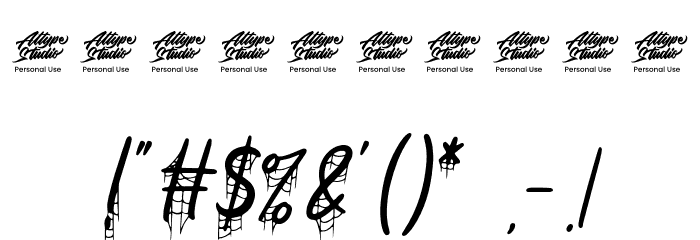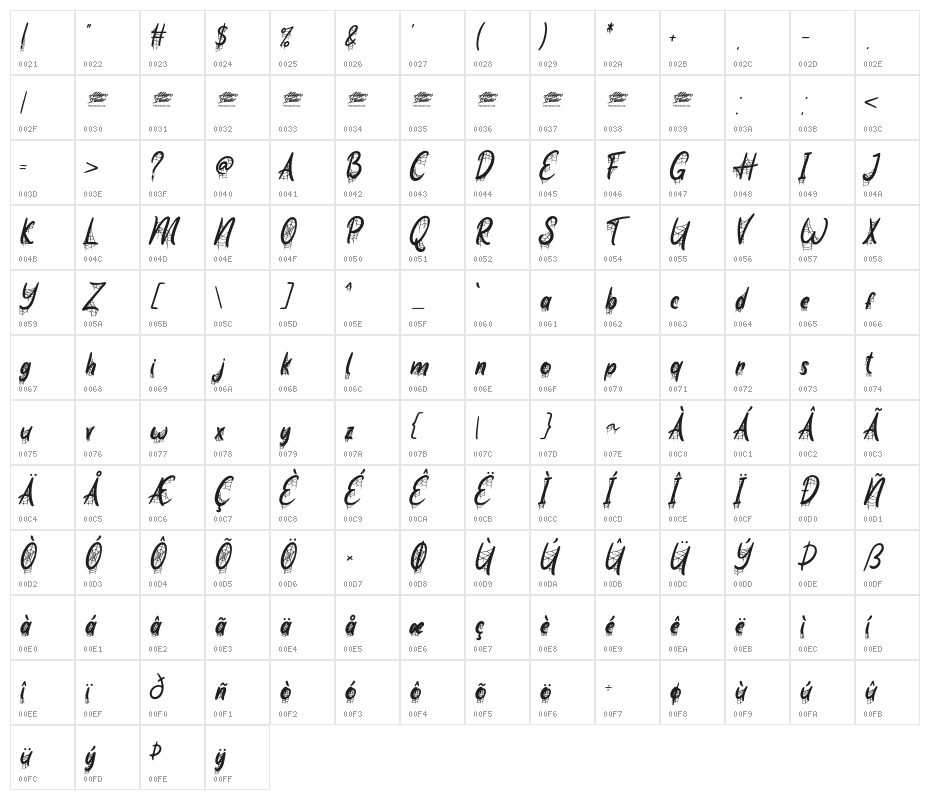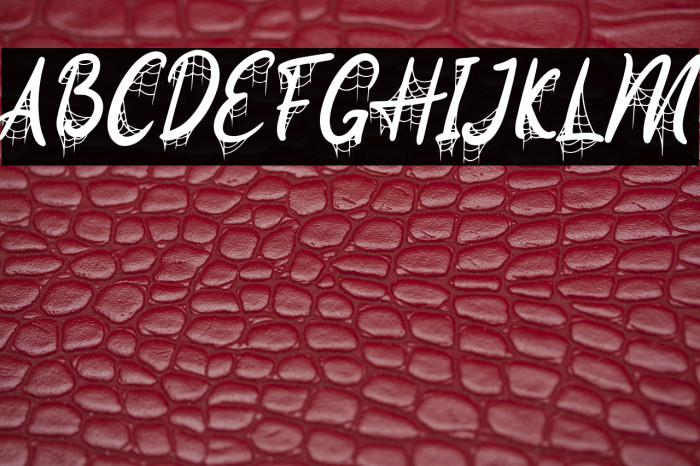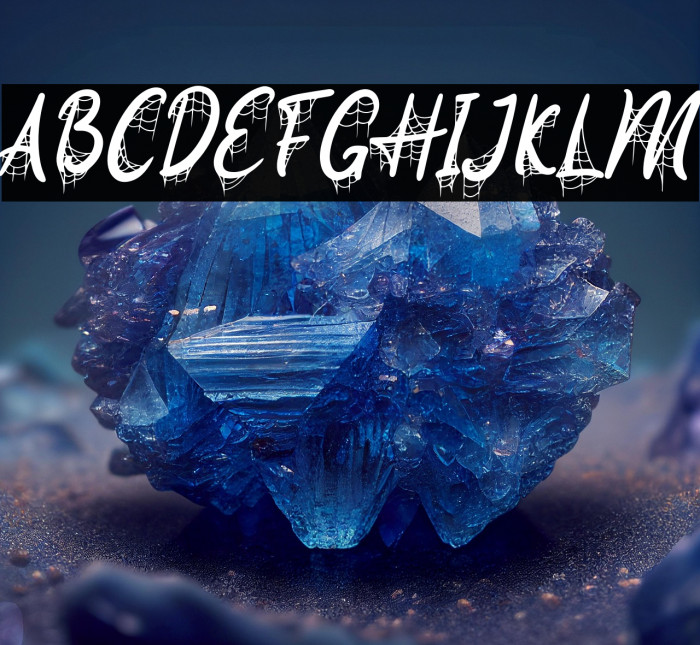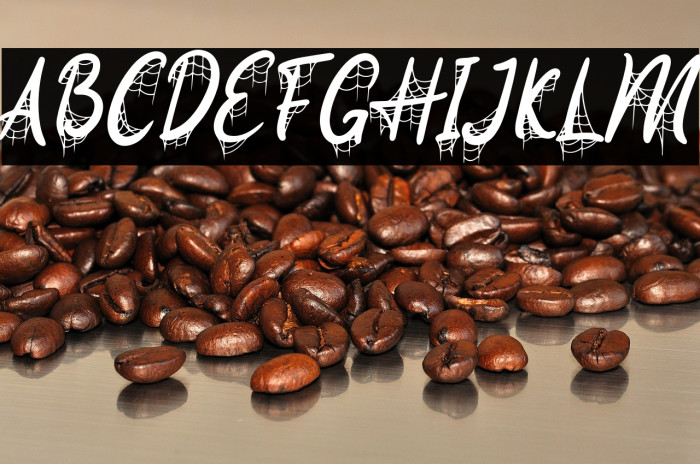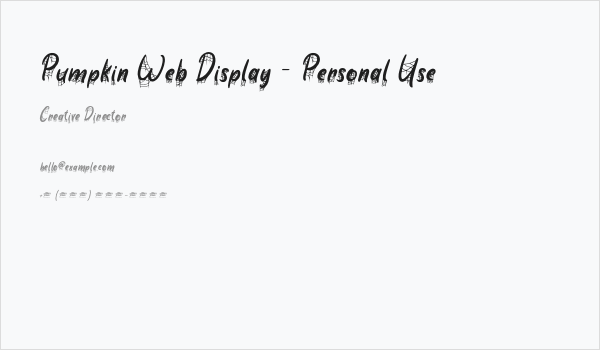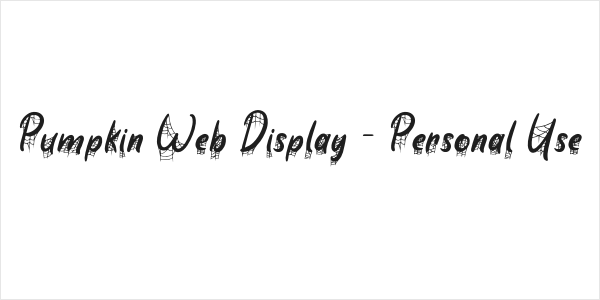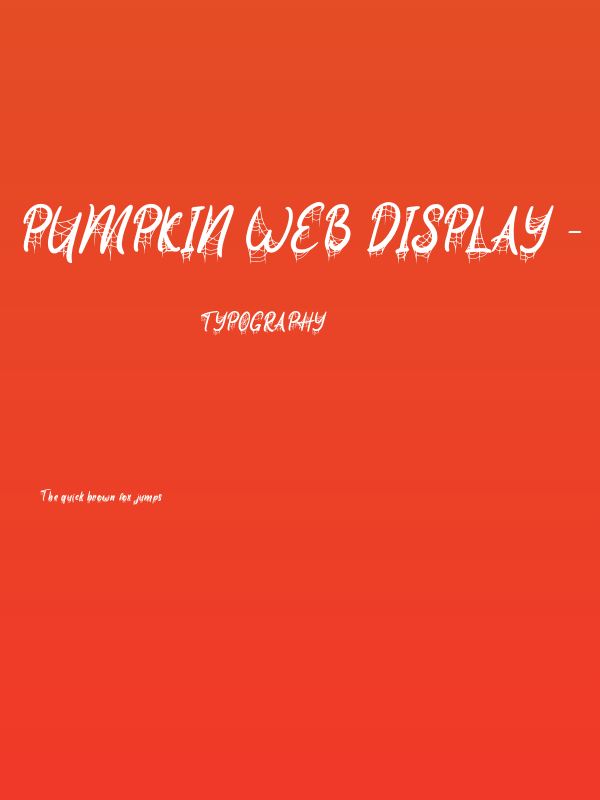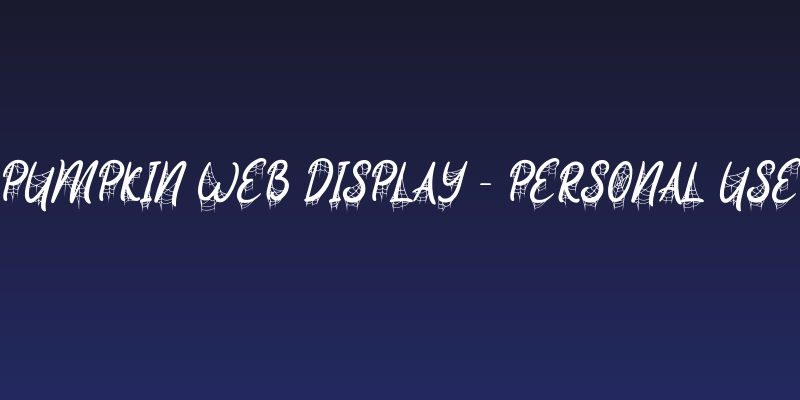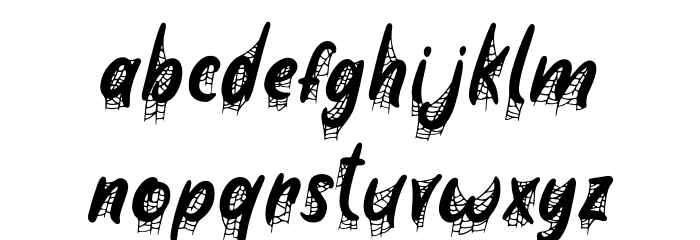
Pumpkin Web Display - Personal Use Font
Pumpkin Web Display - Personal Use Description
This font features a playful and spooky design, incorporating elements reminiscent of spider webs within each character. The letters are bold and slightly slanted, giving an impression of movement and energy. The uppercase and lowercase letters maintain a consistent style, with the web-like details adding a unique texture. The special characters are also designed with the same thematic elements, making them cohesive with the rest of the font. This font is perfect for Halloween-themed projects or any design that requires a touch of whimsy and eeriness.
| Use Case | Headlines, Logos, Themed Events |
| Proposed Projects | Ideal for Halloween invitations, themed posters, party decorations, and spooky branding. |